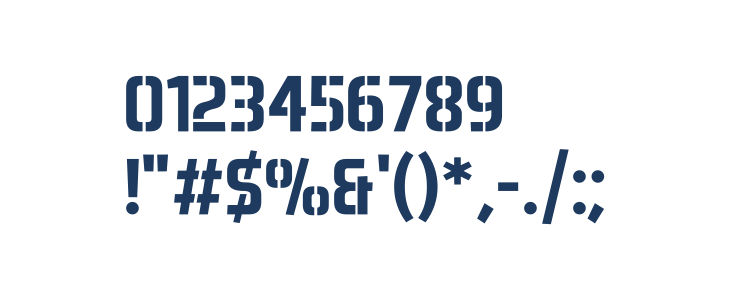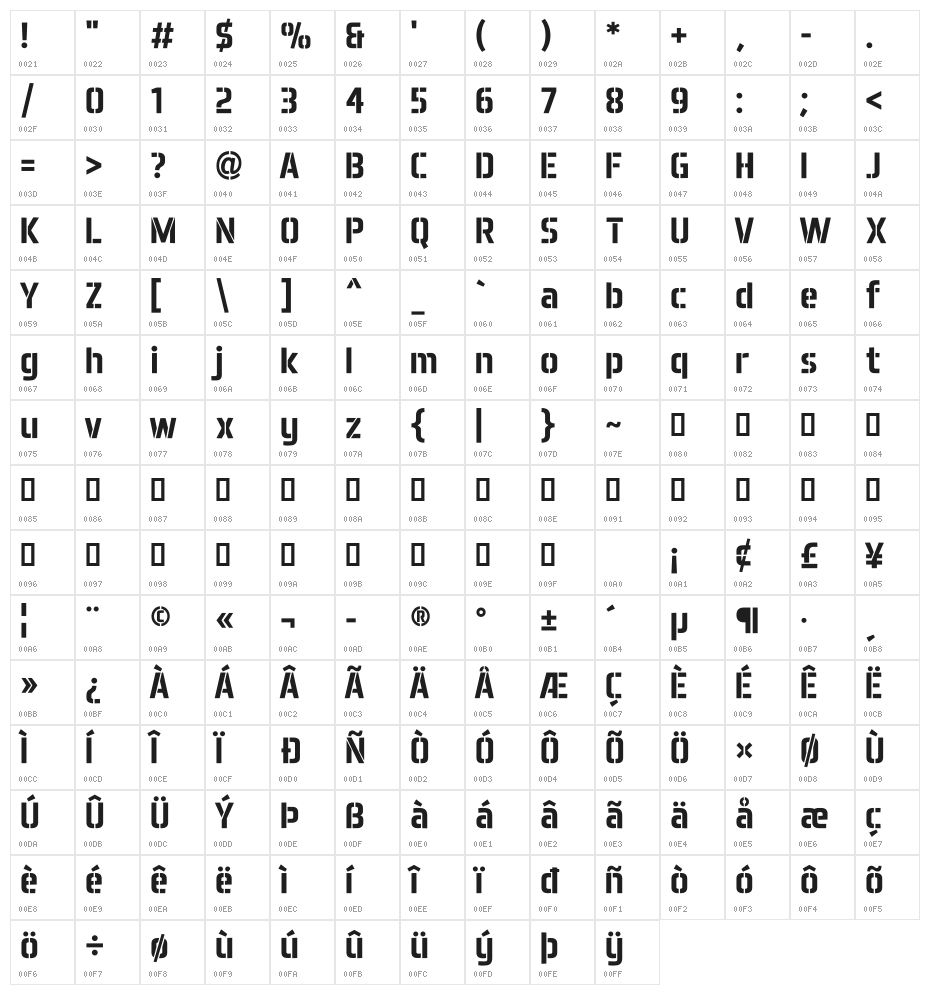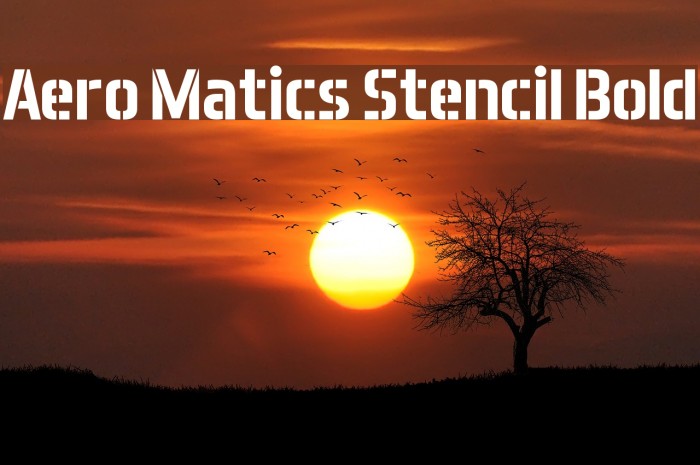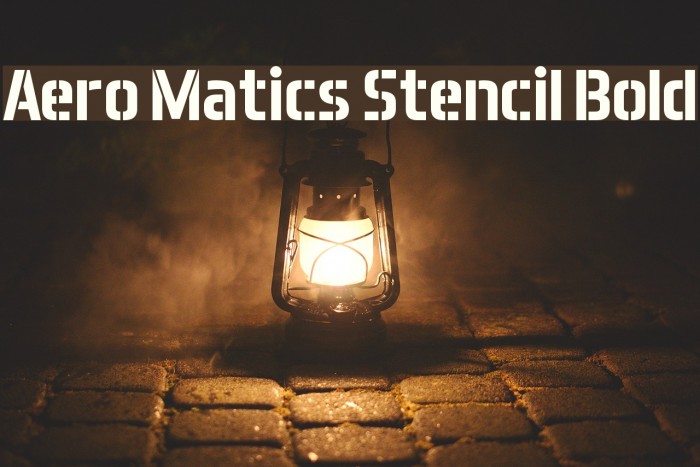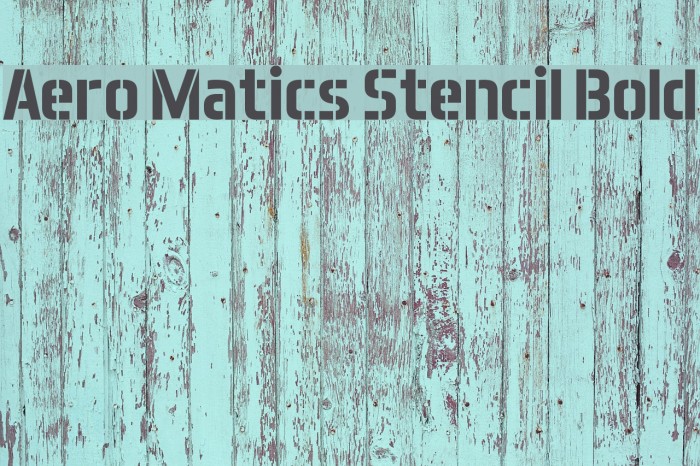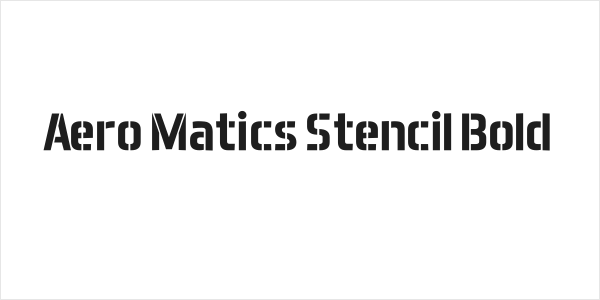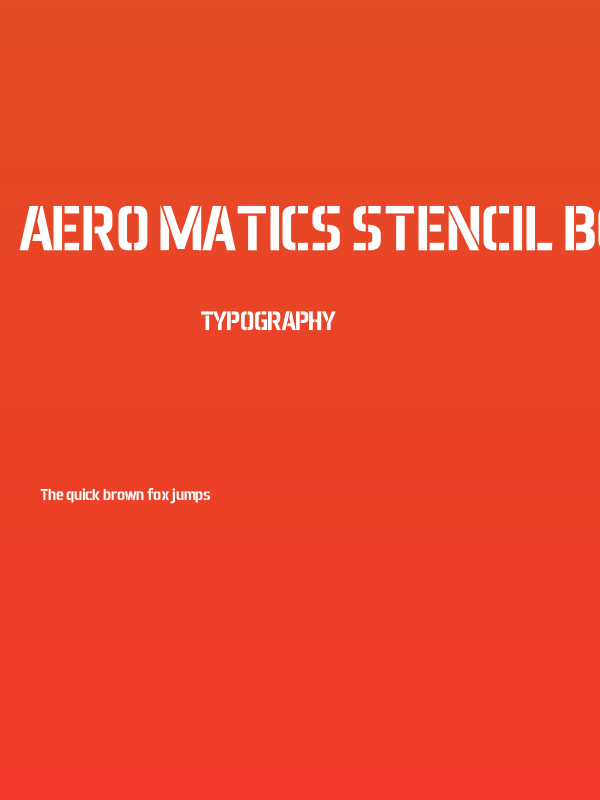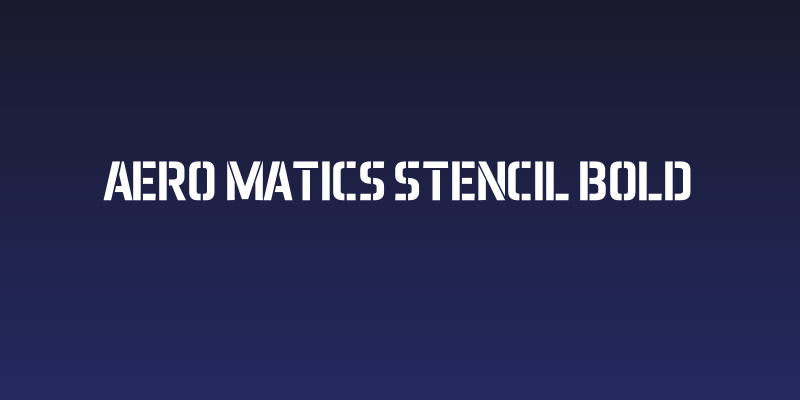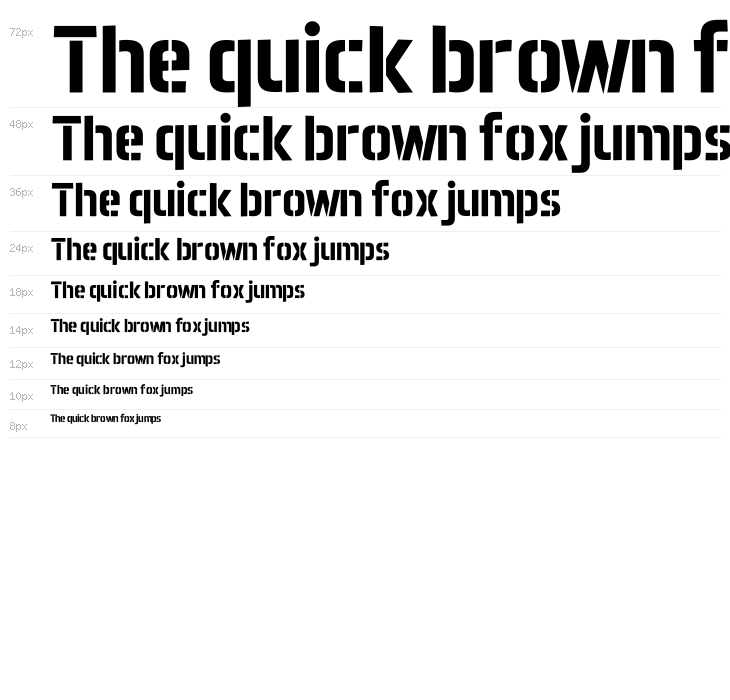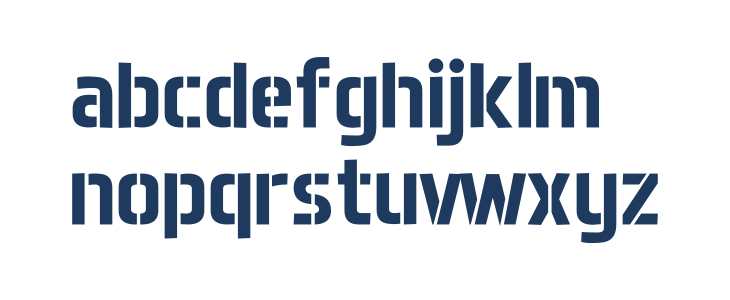
Aero Matics Stencil Bold Font
Aero Matics Stencil Bold Description
This font features a bold, geometric design with a stencil-like appearance. Each character is crafted with precision, incorporating cut-out sections that give it a distinct, industrial feel. The uppercase letters are particularly striking, with sharp angles and clean lines that convey strength and modernity. The lowercase letters maintain the same robust style, ensuring consistency throughout the typeface. Numbers and special characters are equally bold and well-defined, making them suitable for a variety of applications. The font's unique style makes it ideal for projects that require a strong visual impact.